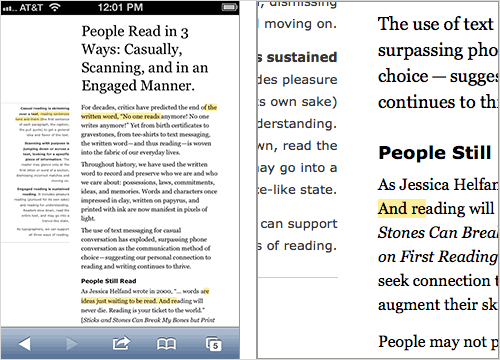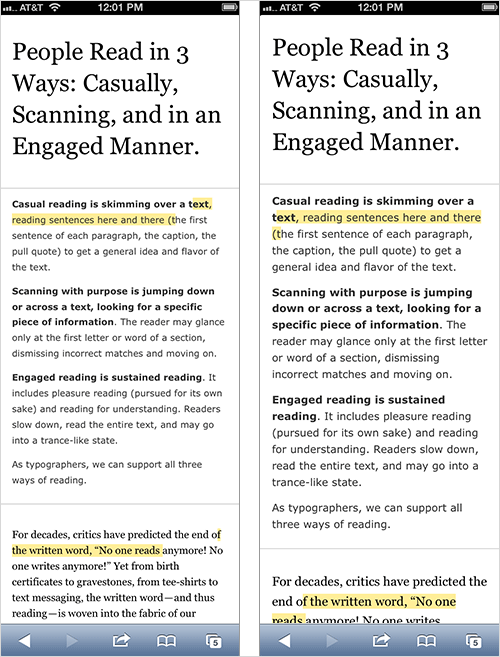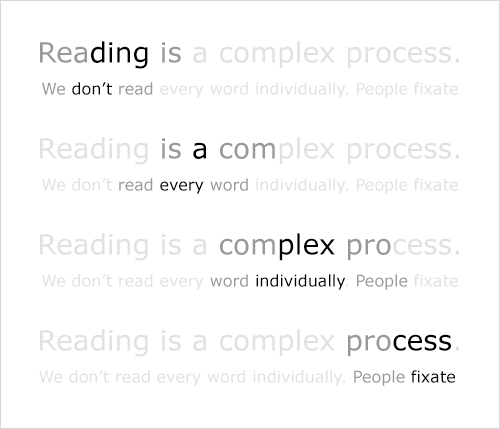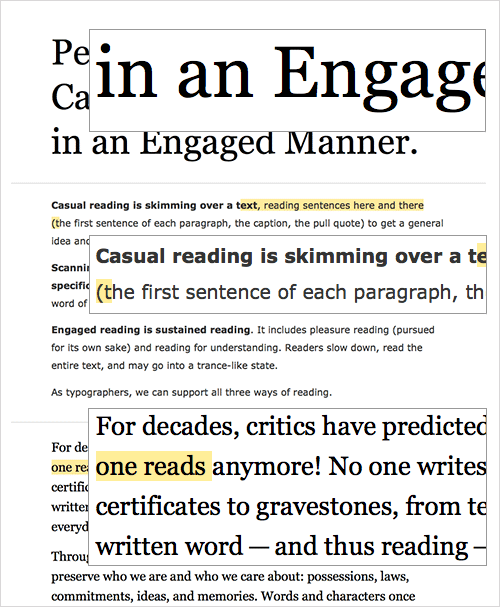
Quick summary ~~> As we refine our methods of responsive web design, we’ve increasingly focused on measure (another word for “line length”) and its relationship to how people read.
As we refine our methods of responsive web design, we’ve increasingly focused on measure (another word for “line length”) and its relationship to how people read.
The popularization of the “ideal measure” has led to advice such as “Increase font size for large screens and reduce font size for small screens.” While a good measure does improve the reading experience, it’s only one rule for good typography. Another rule is to maintain a comfortable font size.
How People Read
People read online text to serve their own needs: to find the information they seek, to discover new ideas and to confirm their notions about life.
PEOPLE READ IN THREE WAYS
In 2006, the Nielsen Norman group released images of heat maps from eye-tracking studies. The areas where people looked at the most while reading are red, areas with fewer views are yellow, and the least-viewed areas are blue. As you can see below, the red and yellow areas form three variations of an F-shaped pattern. These variations aren’t surprising because people read in three different ways.
People read casually, skimming over text, reading words and sentences here and there to get a sense of the content. The heat map below shows the eye movements of someone casually reading about a product. The reader spent time looking at the image of the product, reading the first couple of sentences, then scanning through the bulleted list.
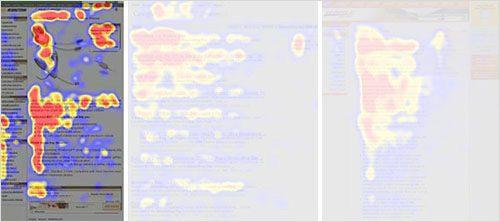
The Nielsen Norman Group explored the F-shaped pattern for casual reading in 2006.
People also scan with purpose, jumping from section to section, looking for a particular piece of information. They might only read a word or the first couple of characters of a word as they scan the screen. The heat map below shows the eye movements of someone scanning the results of a Google search with purpose. The person read the first two results more slowly. Then, their eyes jumped from section to section, looking for the search term. Therefore, we do not see a strong vertical stroke along the left edge of the text.
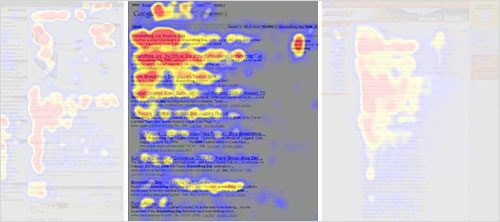
The Nielsen Norman Group explored the F-shaped pattern for purposeful scanning in 2006.
Finally, people read in an engaged manner. When they find an article or blog post they are interested in, they will slow down and read the whole text, perhaps even going into a trance-like state. The heat map below shows the eye movements of a person reading in an engaged manner. The tone is more continuous. There is more red (meaning more time spent reading) and less jumping around the page. When the intensity of reading dwindled because they lost interest (the corporate “About us” page might not have aligned with their interests), their eyes continued along the left edge of the text.
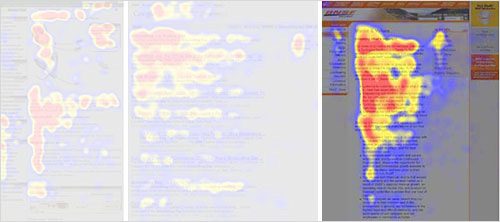
The Nielsen Norman Group explored the F-shaped pattern for reading in an engaged manner in 2006.
READING IS A COMPLEX PROCESS
We know that people read in three different ways, but let’s look more closely at how people read — how the F-shaped patterns are formed.
We know that people. Don’t. Read. Each. Individual. Word. Instead, they use their foveal (or central) vision to focus on a word, while using their peripheral vision to find the next spot on which to focus.
People don’t read each word individually.
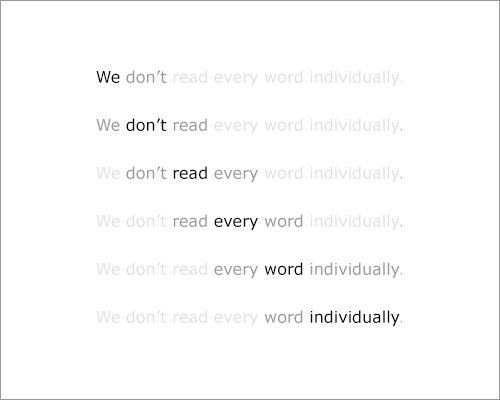
People use their foveal (central) and peripheral vision to read.
We also know that people don’t fixate on every word, but tend to skip words (their eyes take little leaps, called “saccades”) and fill in the rest. This is especially true of those who read casually or scan with purpose.
People skip words and fill in the rest.
Finally, we know that readers anticipate the next line while moving their eyes horizontally along a line; so, their eyes are drawn down the left edge of the text. This constant struggle between horizontal and vertical motion contributes to the F-shaped reading patterns.
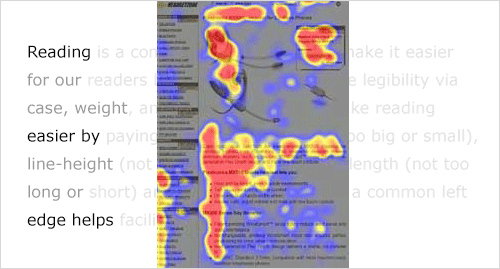
The constant struggle between horizontal and vertical eye movement results in the F-shaped patterns.
Line Length (Measure) And Reading
Typographers have been writing about the relationship between horizontal and vertical eye motion for almost a century. In 1928, Jan Tschichold dismissed centered text and advocated for left-aligned text. He argued that this would assist readers by providing a consistent left (vertical) edge for the eye to return to after finishing each (horizontal) line.
THE IDEAL MEASURE: 45 TO 75 CHARACTERS
We have multiple “rules” for facilitating a horizontal reading motion, one of which is to set text at a reasonable measure. As James Craig wrote in his book Designing With Type (originally published in 1971, now it its fifth edition):
Reading a long line of type causes fatigue: the reader must move his head at the end of each line and search for the beginning of the next line.… Too short a line breaks up words or phrases that are generally read as a unit.
Remember that all rules are meant to be broken. Heck, Jan Tschichold broke his own rule and used centered text for much of his career. When the time comes, sacrifice measure for a comfortable font size. A good font size (not too small) is readable. A good font size (not too big) promotes horizontal eye motion. A good font size with the proper line height will help your readers find what they’re looking for.
Size Matters: Balancing Line Length And Font Size In Responsive Web Design